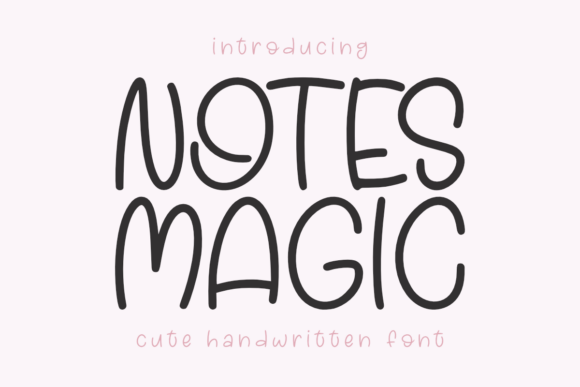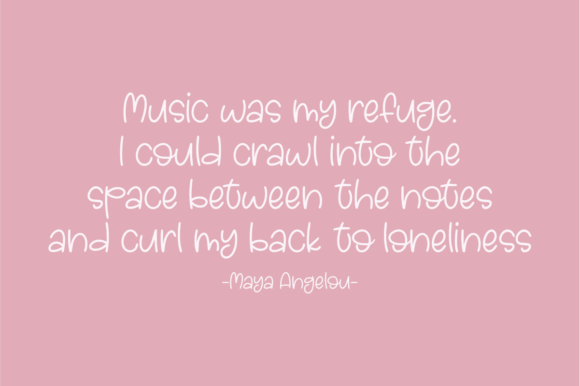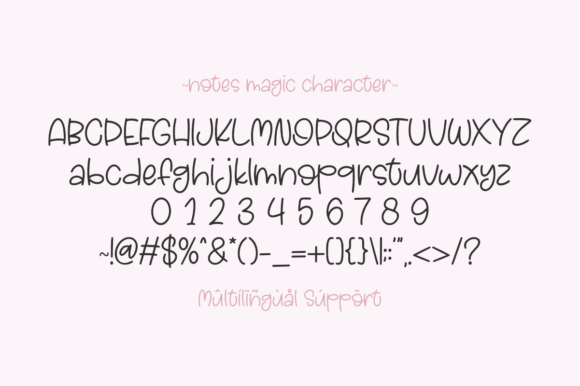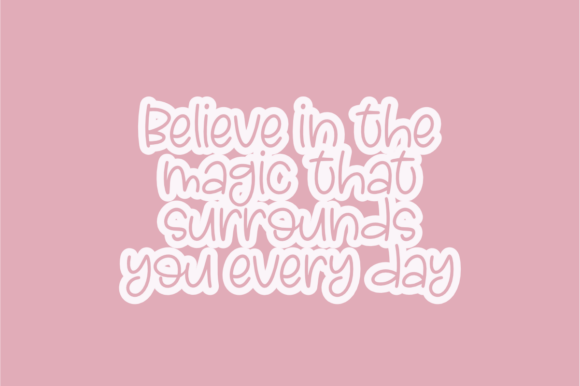
Notes Magic Font
About the Notes Magic Font
Make a bold statement with Notes Magic Font, a powerful and memorable font. Notes Magic is a cute and playful handwriting font, perfect for planners, stickers, cards, quotes, and craft projects. Ideal for creative moms who love DIY, journaling, and Cricut crafts!
Its playful energy makes it ideal for projects needing a touch of whimsy, such as children’s books, branding for artisanal goods, or social media graphics. Avoid using it for large bodies of text or applications requiring high readability, like websites or lengthy documents. The informal nature might also clash with sophisticated branding.
Pair Notes Magic with a clean sans-serif like Lato for contrast and readability in layouts incorporating both display and body text. For a more vintage feel, consider pairing it with a serif like Playfair Display. Alternatively, a simple geometric sans-serif adds a modern touch without overpowering the hand-drawn charm.
Notes Magic’s core personality is undeniably cheerful and approachable, making it a great choice for brands focusing on happiness, creativity, and handcrafted products.
Notes Magic Font Usage Examples
Notes Magic Font Example